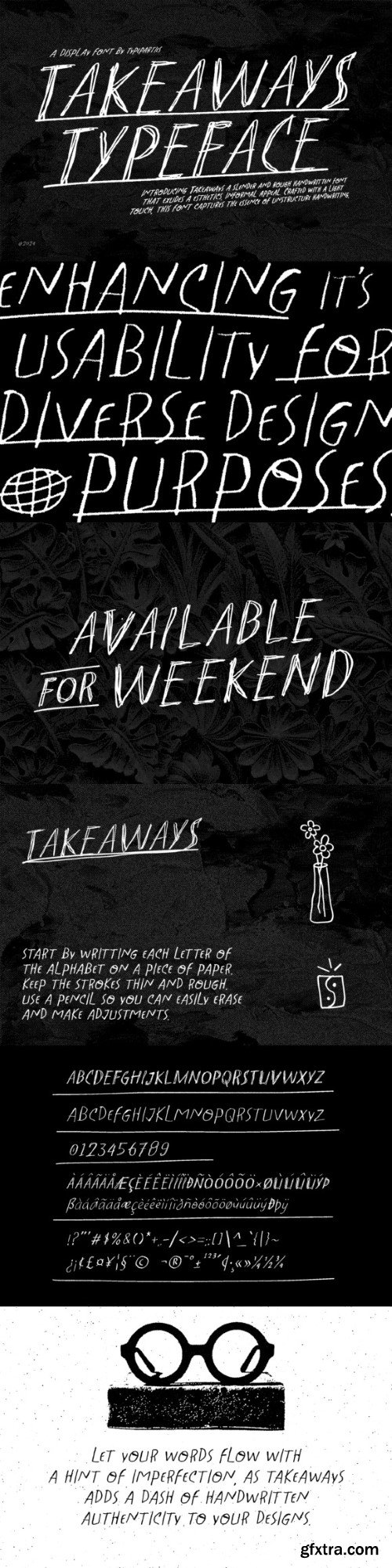
Takeaways is a skinny handwritten font that captures the essence of casual, quick strokes on paper. The characters maintain a delicate balance between simplicity and personality, making Takeaways perfect for projects that crave a touch of spontaneity. Whether you’re designing invitations, posters, or adding a personal touch to your digital creations, Takeaways brings a handwritten warmth that’s both inviting and effortlessly stylish.